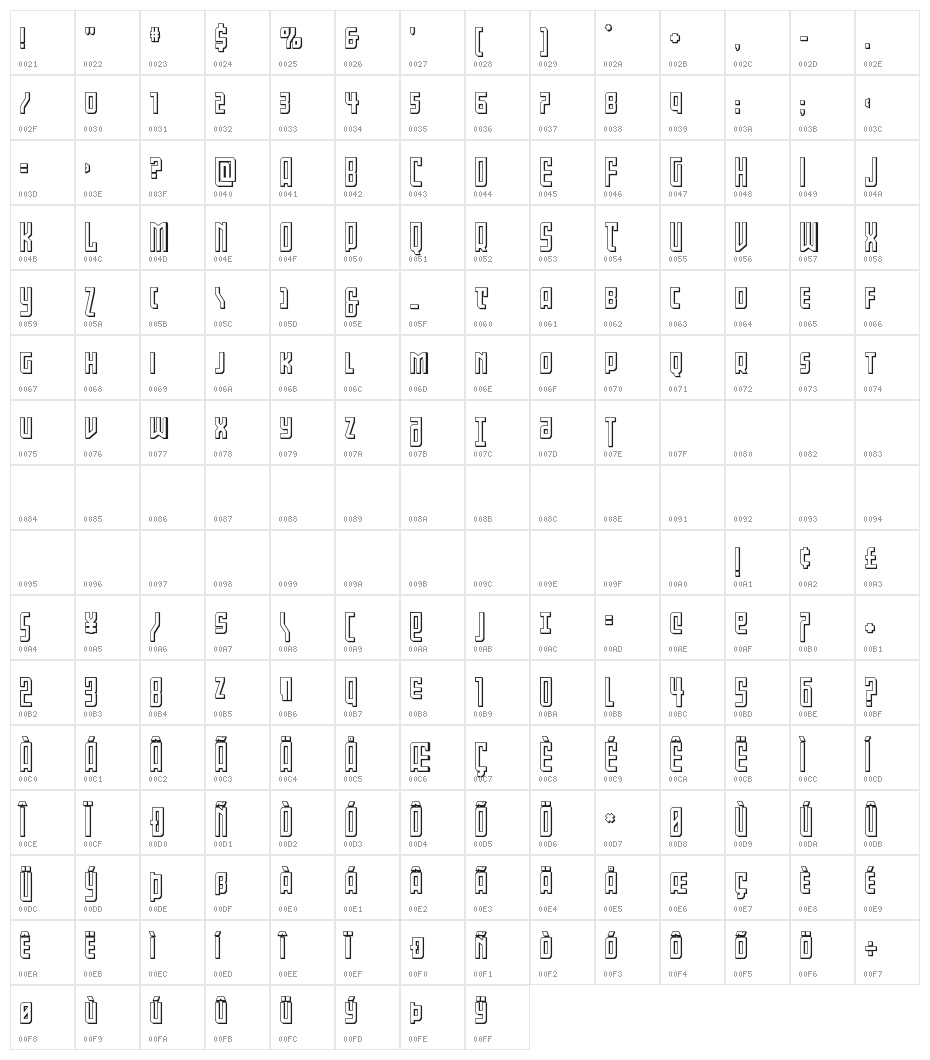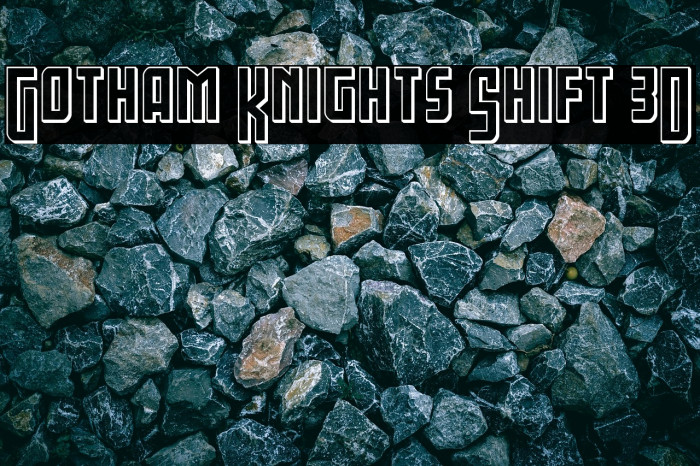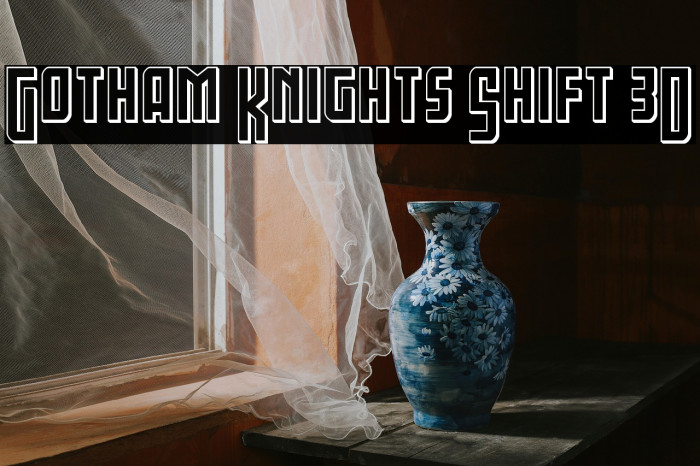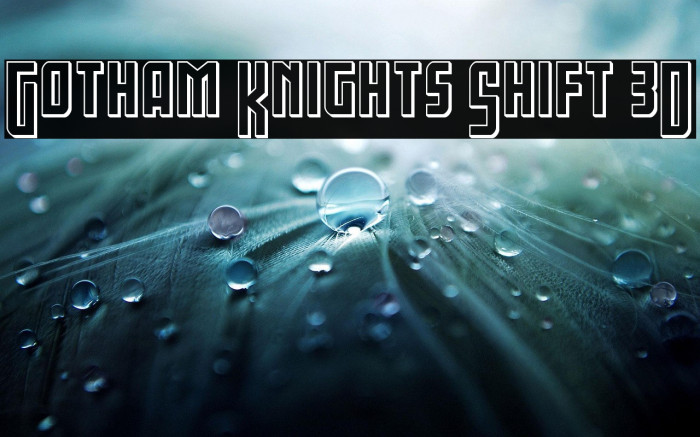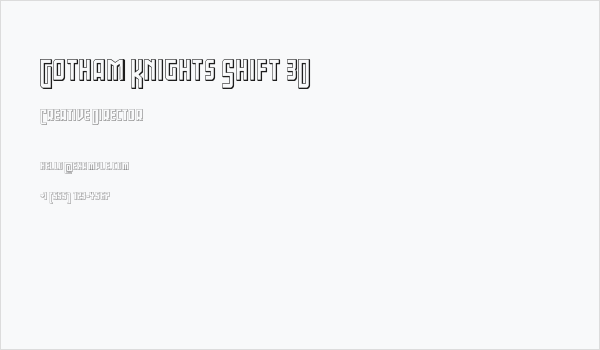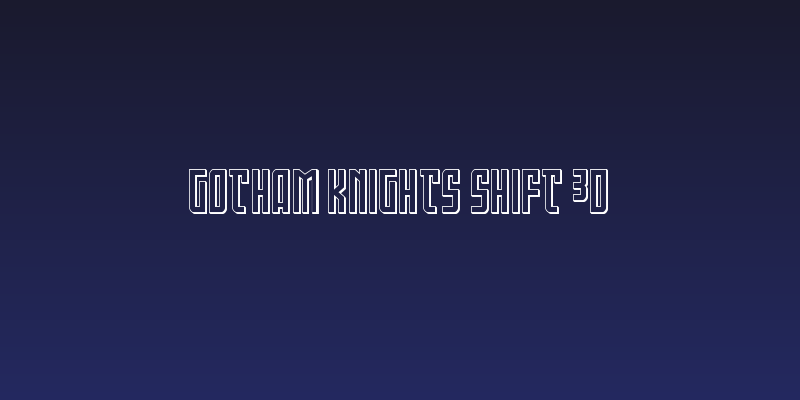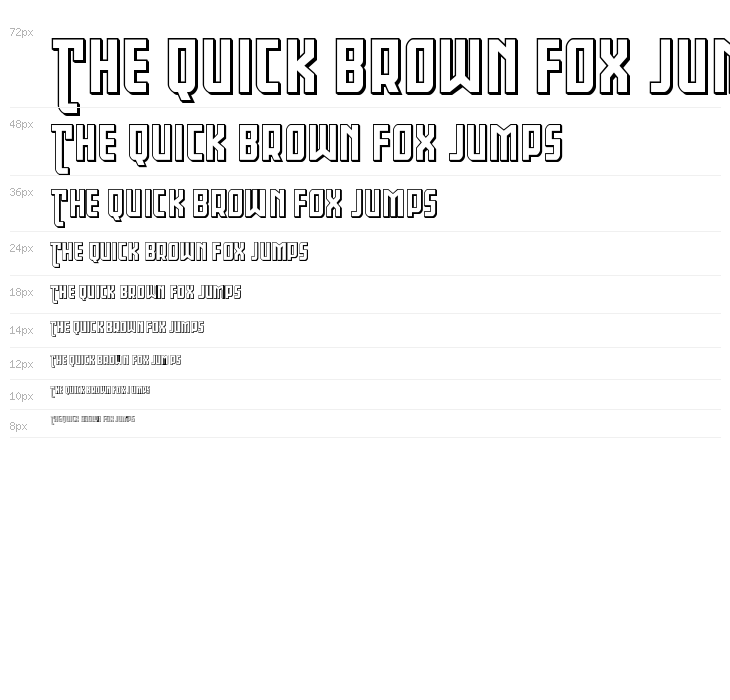
Gotham Knights Shift 3D Font
Gotham Knights Shift 3D Description
This font features a bold, three-dimensional design with a strong geometric influence. The uppercase letters are structured with sharp angles and clean lines, giving a futuristic and dynamic appearance. The characters have a distinct shadow effect, enhancing the 3D illusion. The numerals and special characters follow the same stylistic approach, ensuring consistency throughout. This font is ideal for projects that require a modern and impactful visual presence.
| Proposed Projects | Ideal for video game titles, movie posters, branding for tech companies, and any project needing a modern, bold aesthetic. |